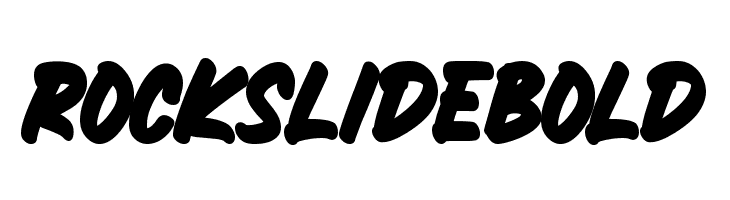
A bold, playful handwritten font with thick, rounded strokes and whimsical curves.
A bold, dynamic script font with thick, rounded strokes and tight spacing.